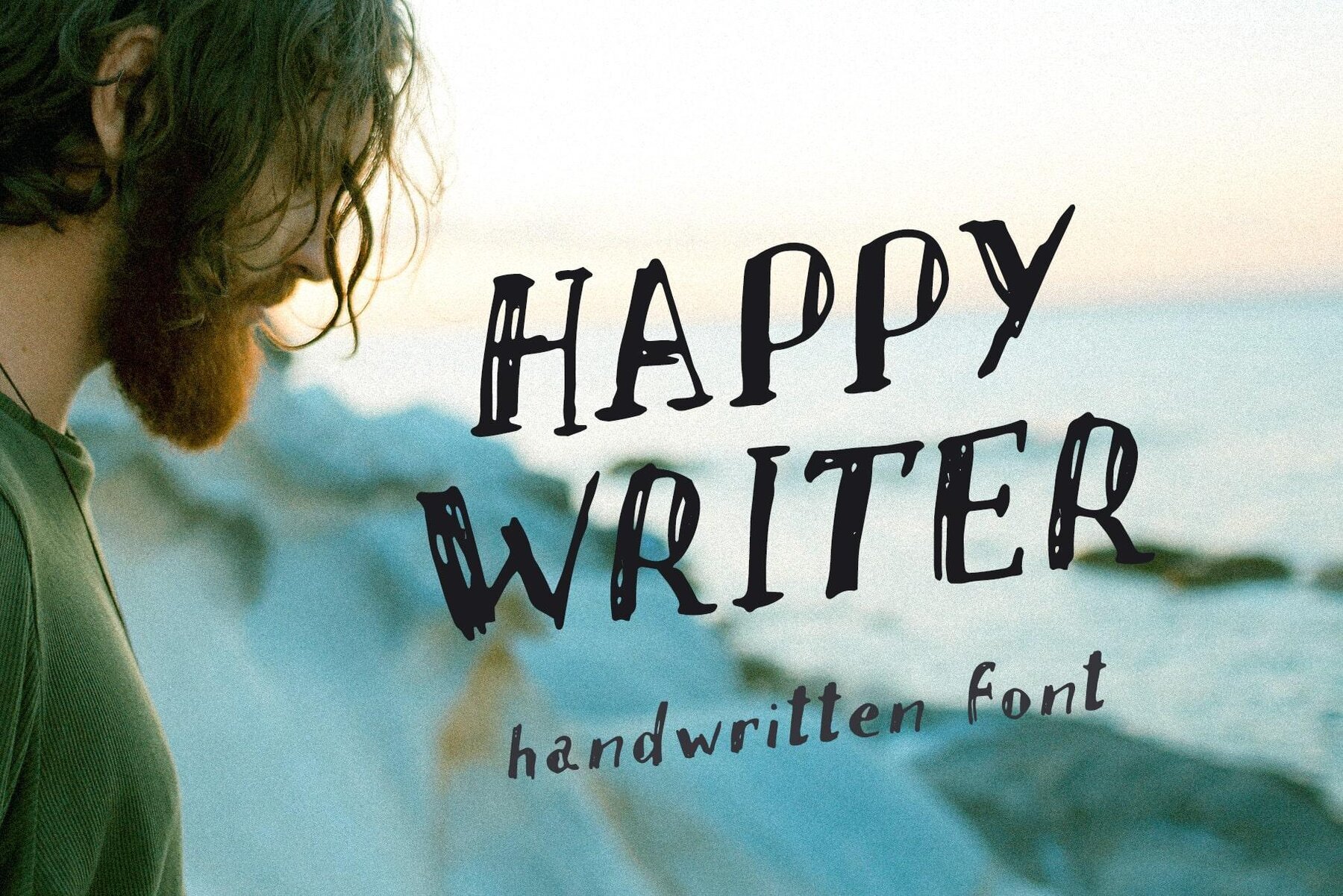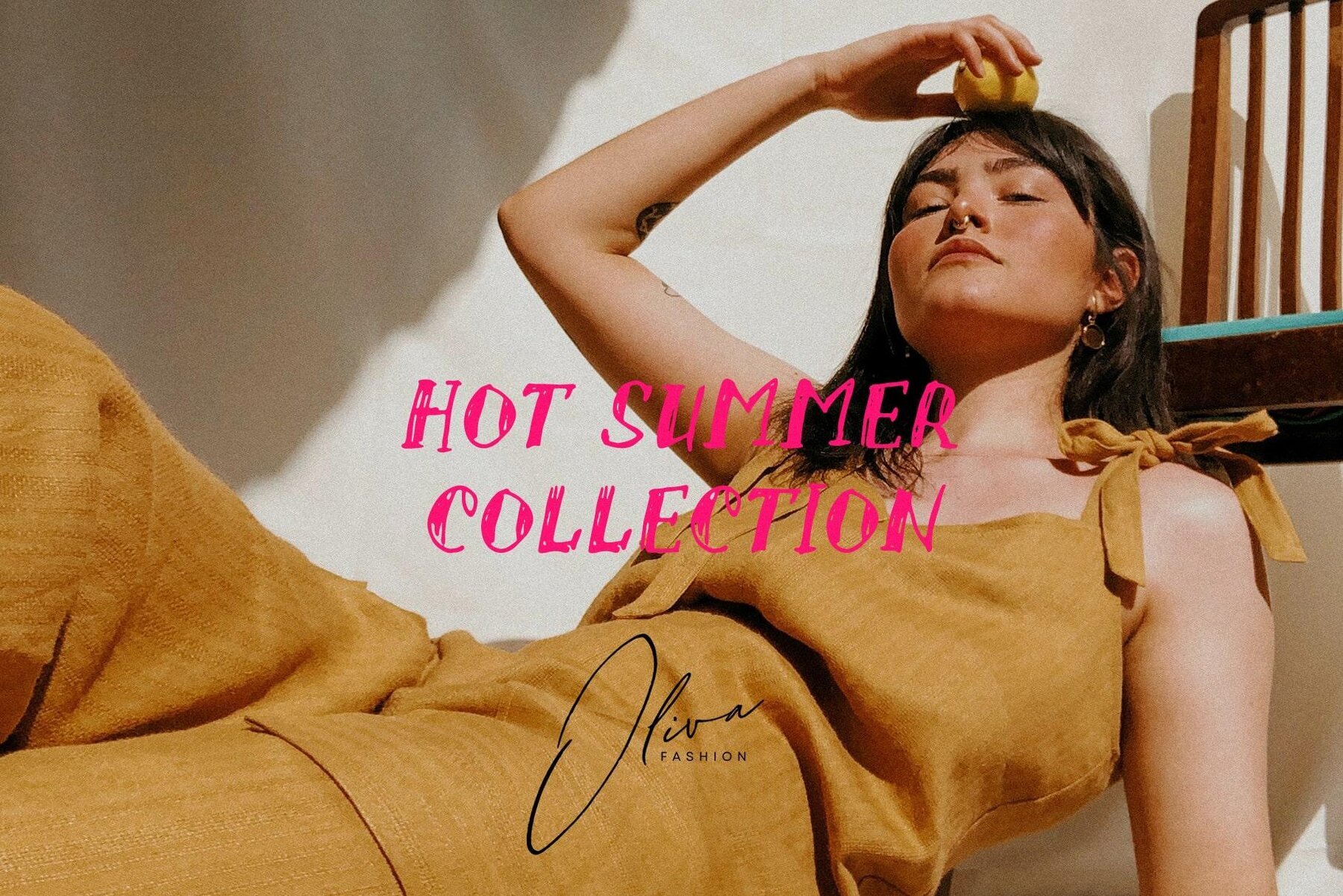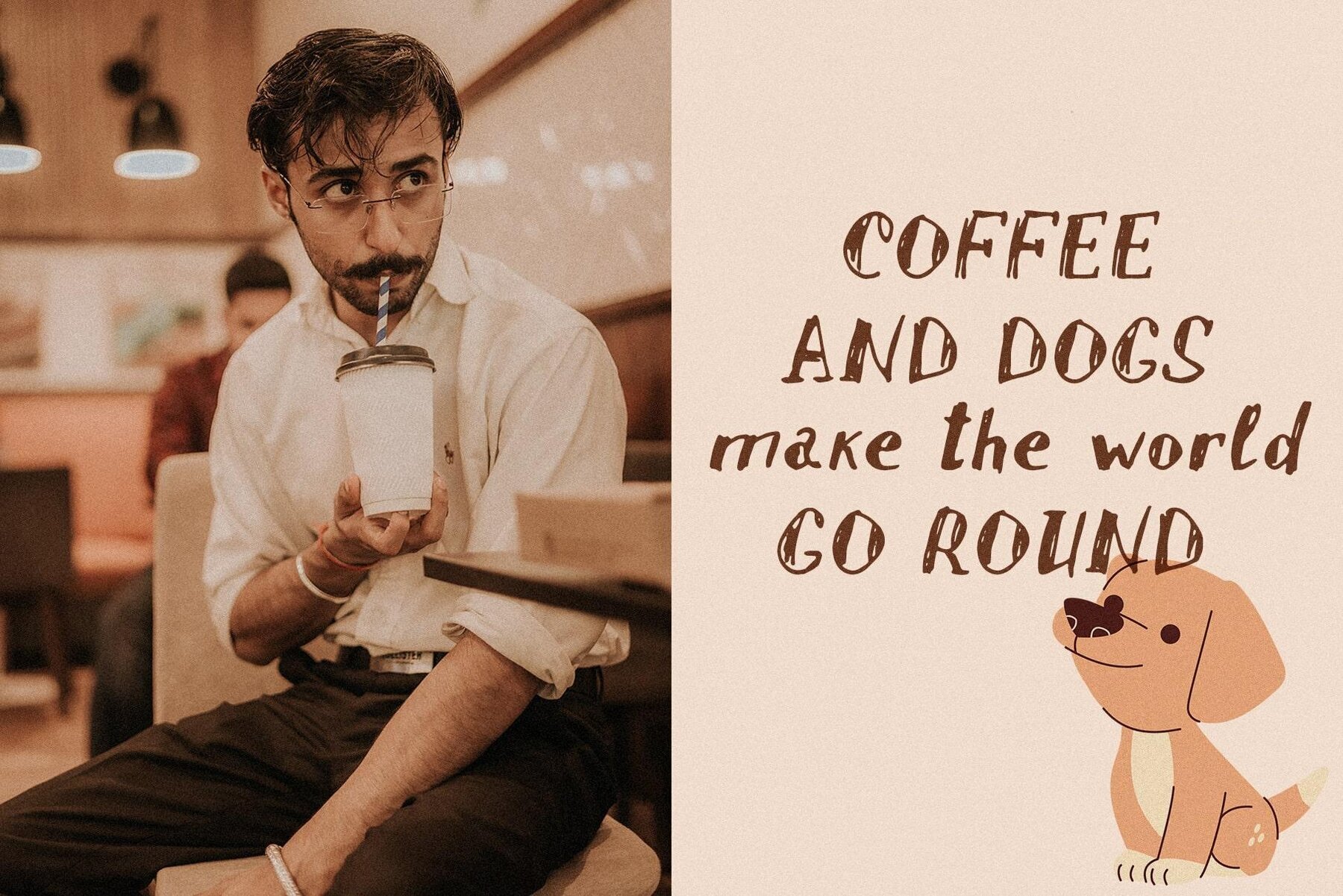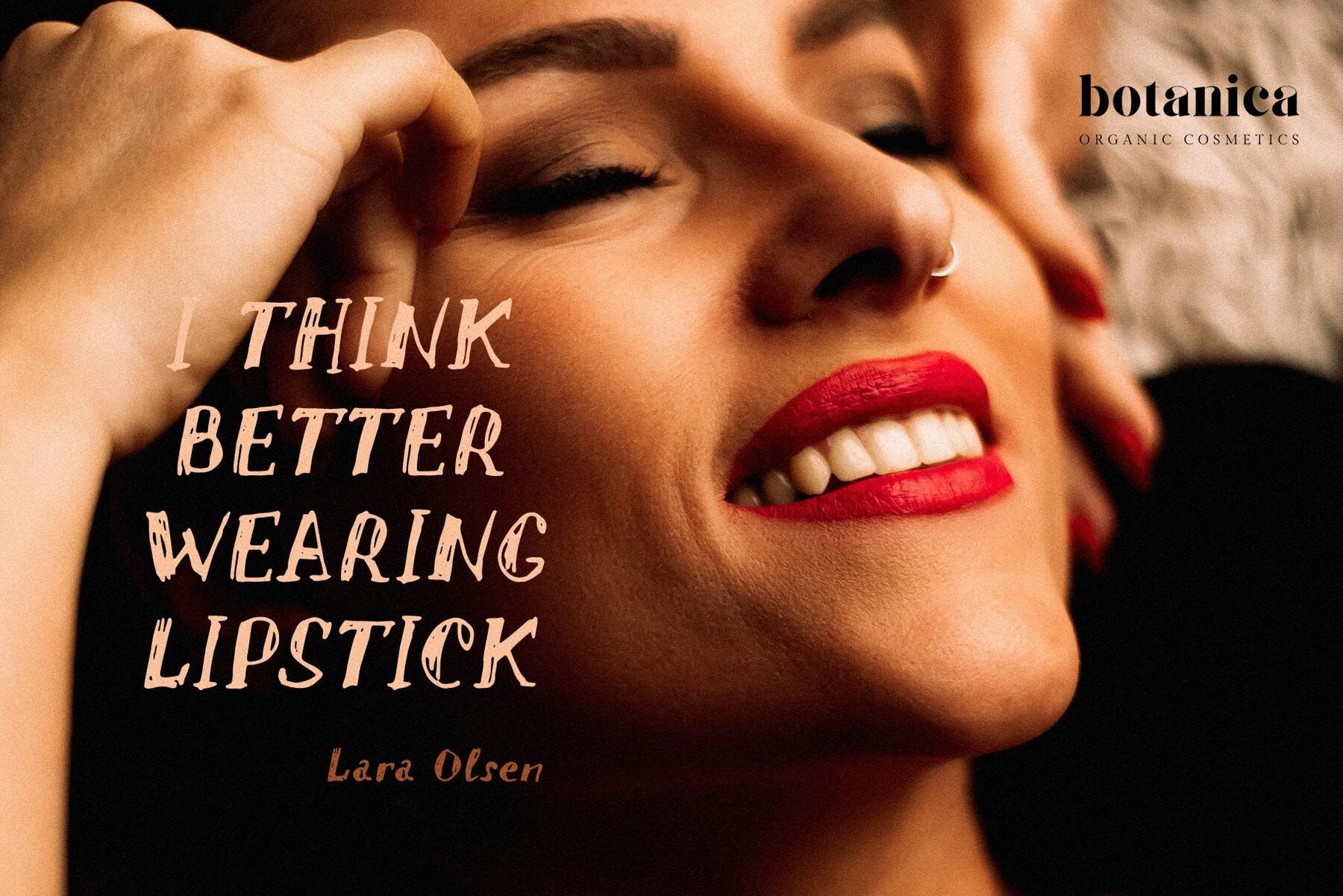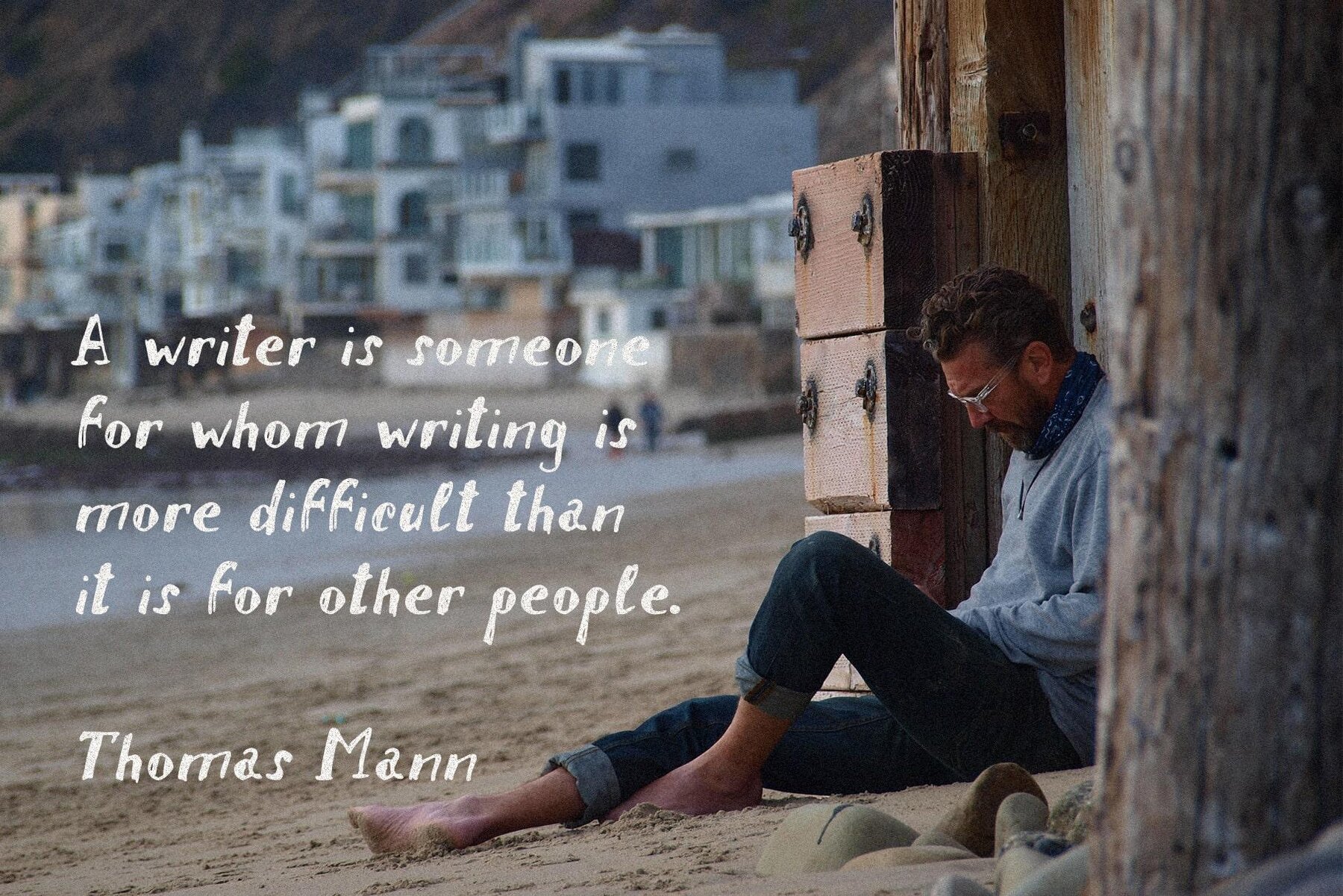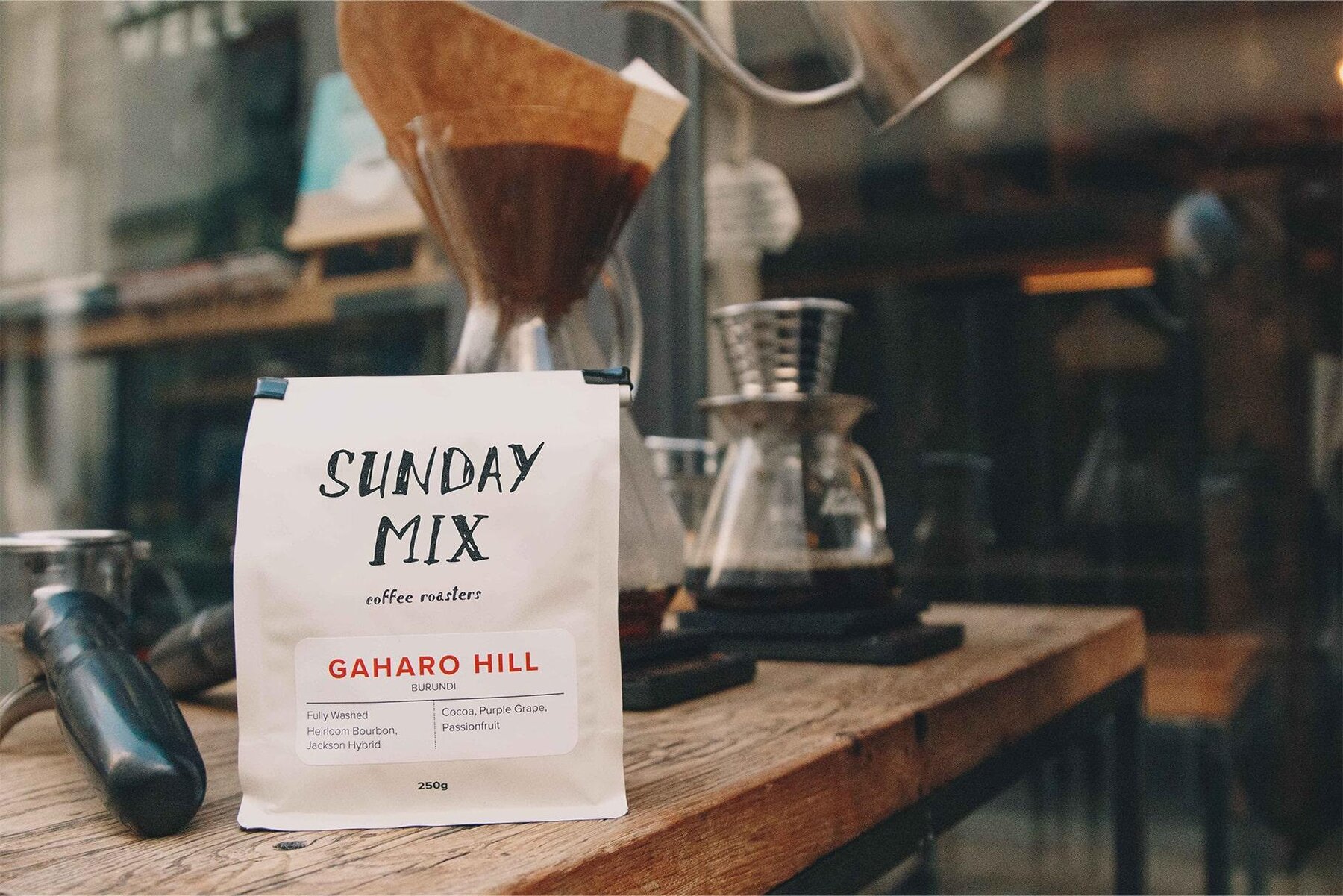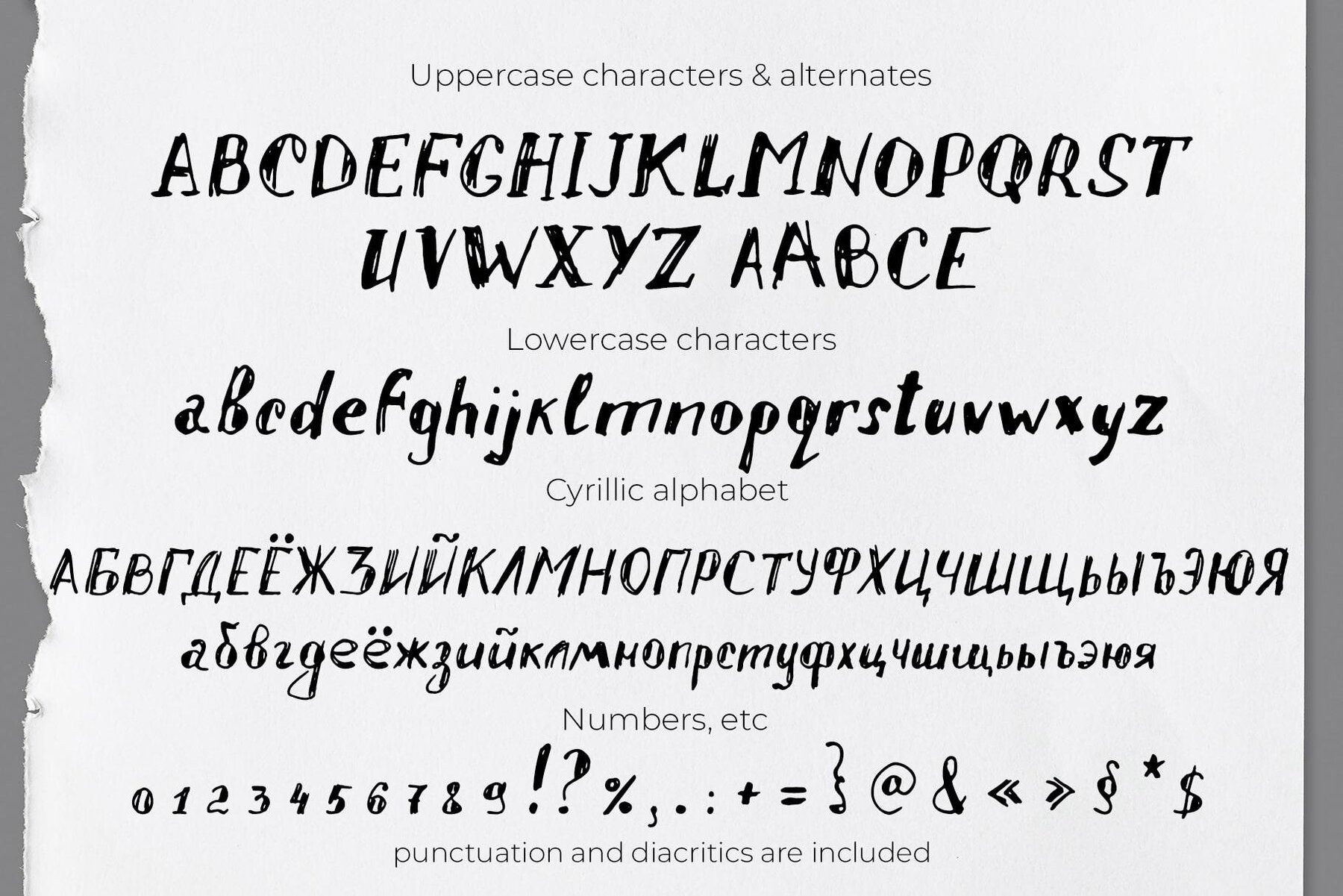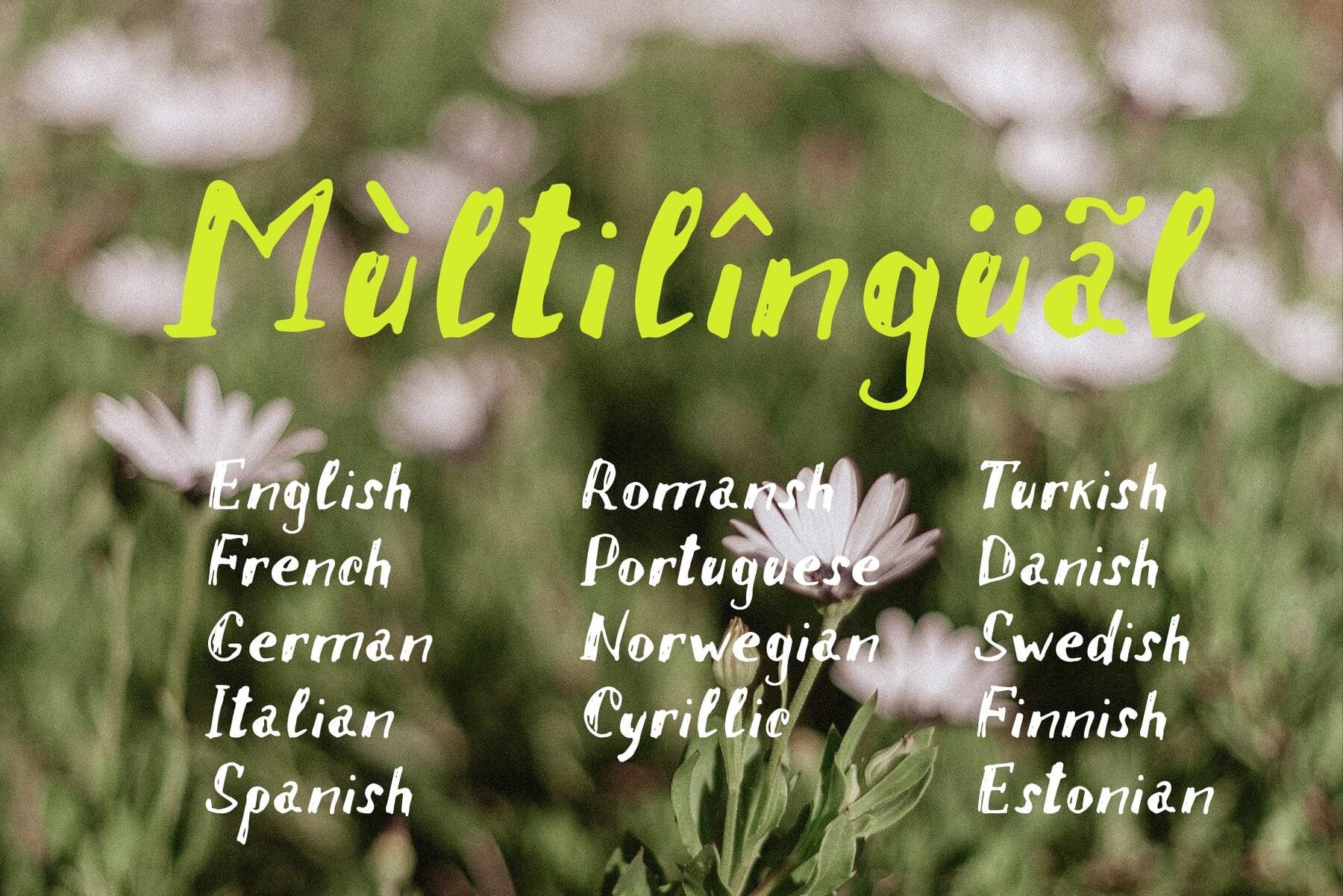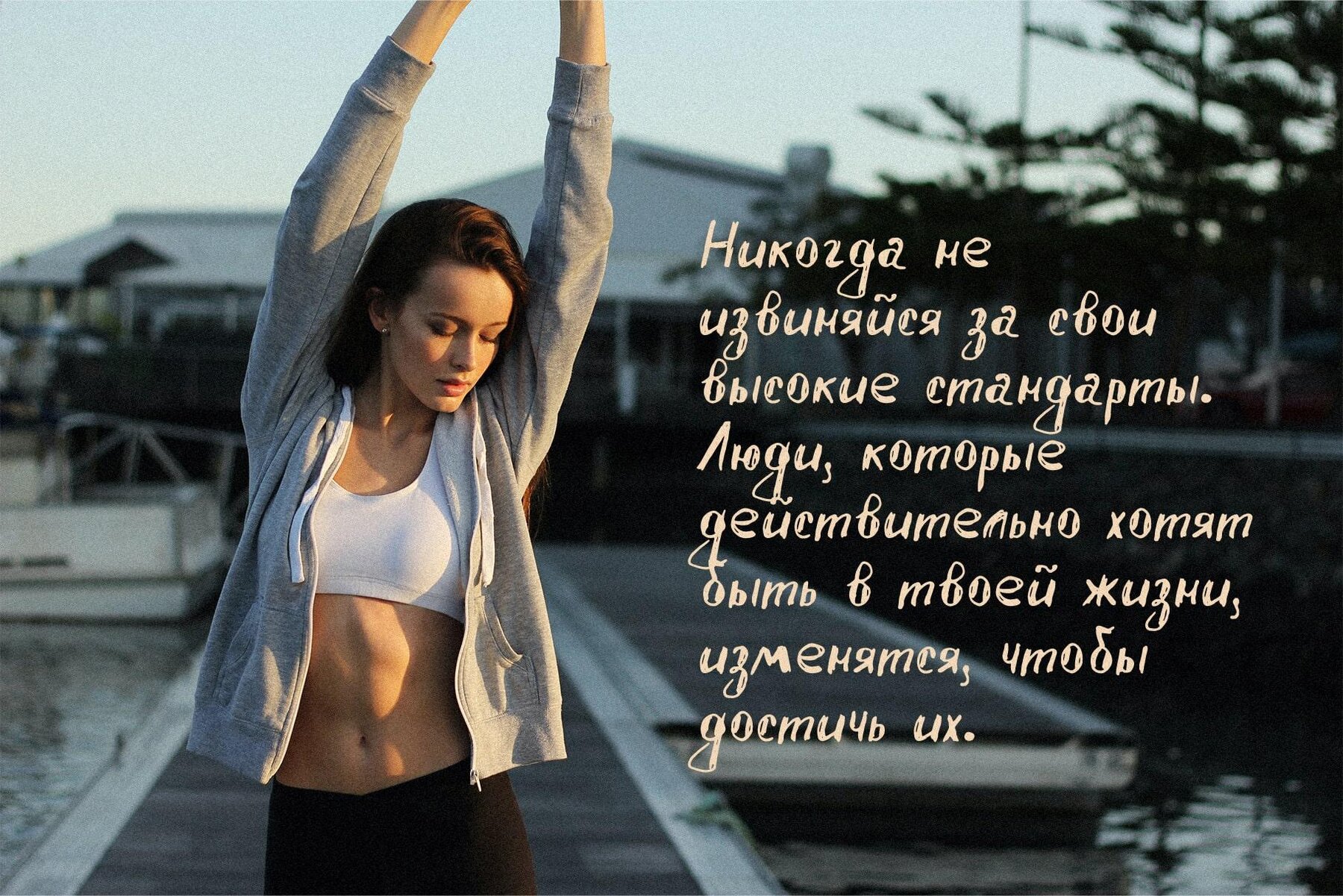
Happy Writer Font
Happy Writer
Introducing Happy Writer, a delightful handwritten font crafted with pen and ink, infusing every design with a touch of personal charm and nostalgia. Ideal for those who cherish the art of writing by hand, it offers an authentic, slightly retro aesthetic that evokes feelings of warmth and creativity. With its diverse applications, Happy Writer is perfect for projects ranging from logo design and packaging to advertising and blogs, making it a versatile choice for any designer.Embrace Old-School Charm with Happy Writer Font